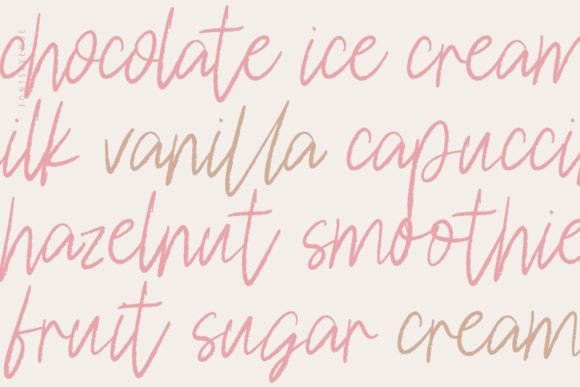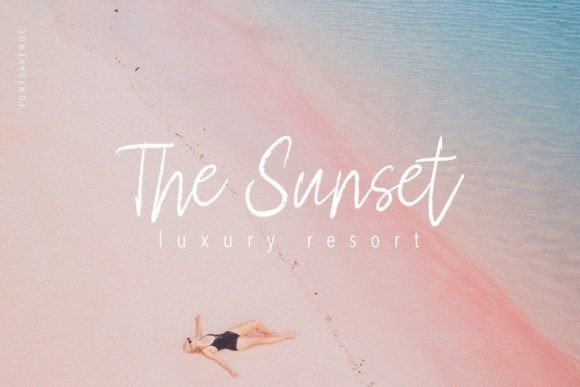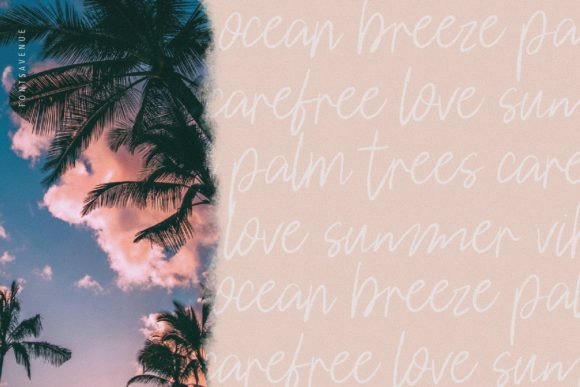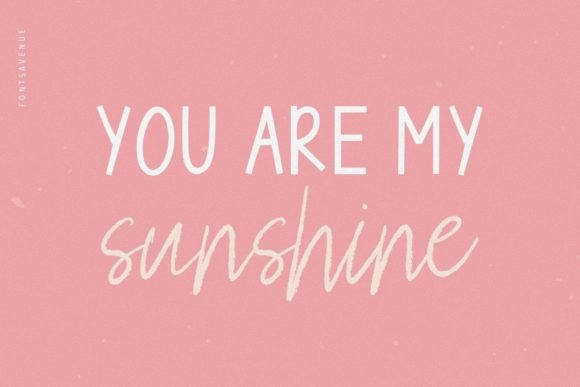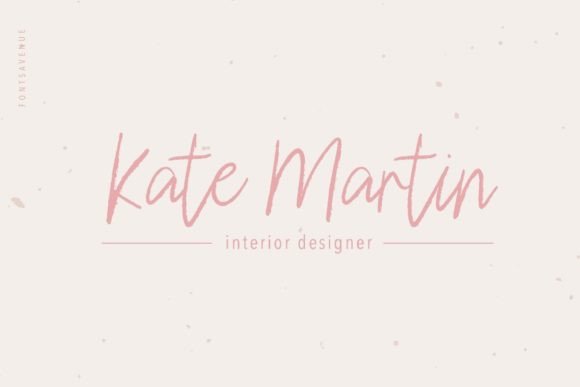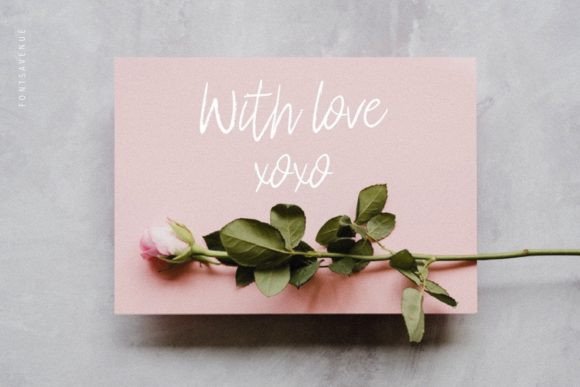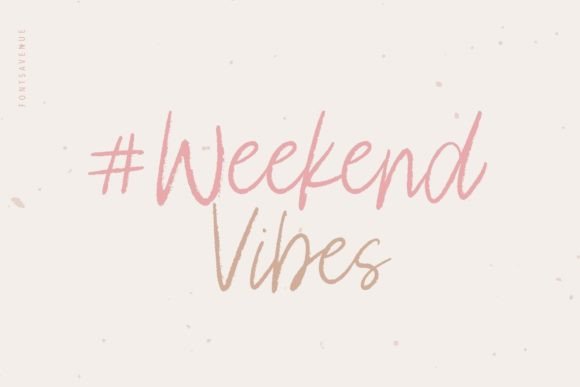
Milkshake Font
About Milkshake Font
“Milkshake” is a lively and textured handwritten script font, designed to bring a playful and casual vibe to a variety of design projects. Its brush-textured style adds character and authenticity, making it a great choice for invitations, logo design, branding, quotes, stickers, and more.
The PUA (Private Use Area) encoding of “Milkshake” ensures easy access to a wide range of creative elements, including unique glyphs and ligatures. This feature allows you to personalize your text and add distinctive touches to your designs effortlessly.
Whether you’re working on projects that call for a laid-back and fun aesthetic or you want to infuse a touch of spontaneity into your creations, “Milkshake” is tailored to meet those needs. The brush texture adds a dynamic and organic feel, making your designs stand out with a lively and handcrafted charm.
Incorporate “Milkshake” into your design arsenal, and let its playful and textured nature elevate your creative endeavors. Whether you’re creating invitations, developing a brand identity, or adding a fun touch to quotes and stickers, this font is ready to bring a spirited and authentic feel to your work.